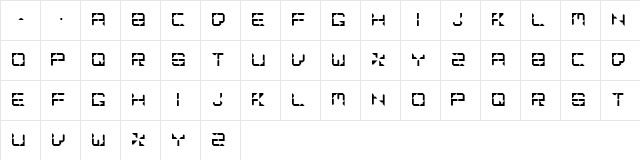
Mashed Potato Free Font
Mashed Potato Mashed Potato
Style: Mashed Potato
Foundry: Dan Speer
Designer: Dan Speer
Design Context for Mashed Potato
Mashed Potato is a composed and adaptable typeface that performs quietly and consistently across a wide range of design contexts.